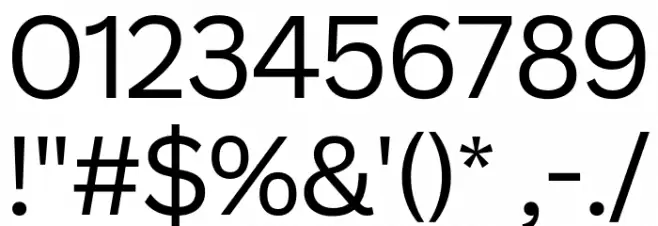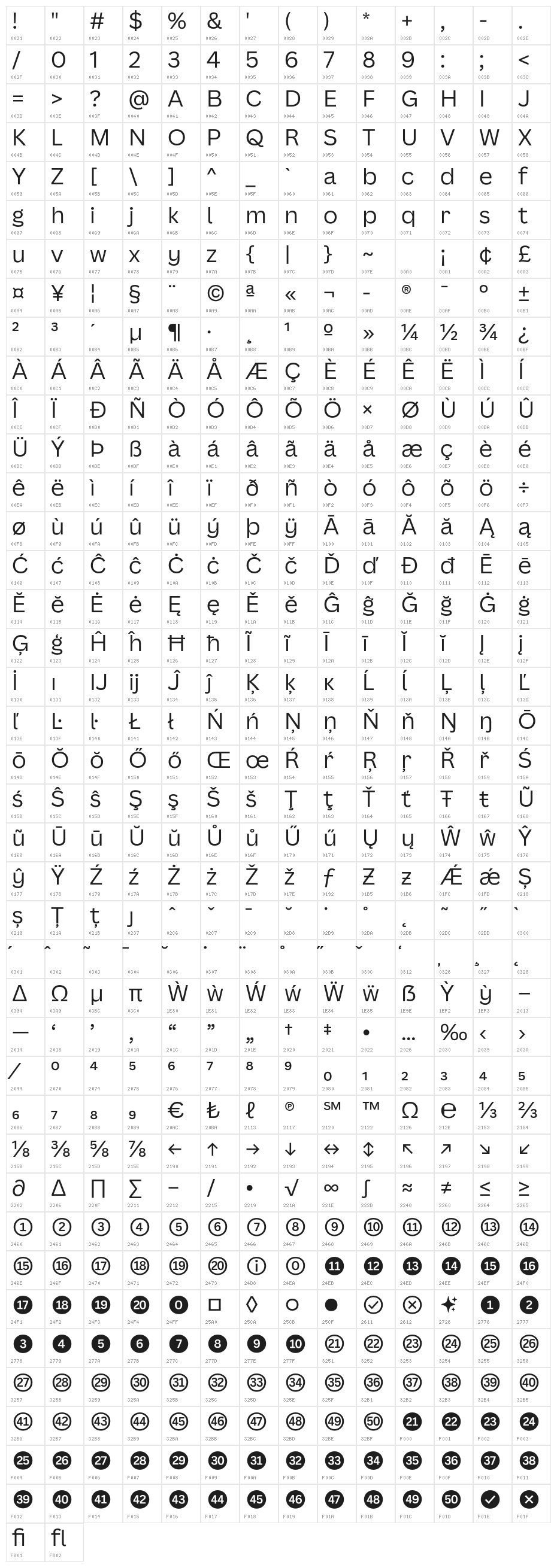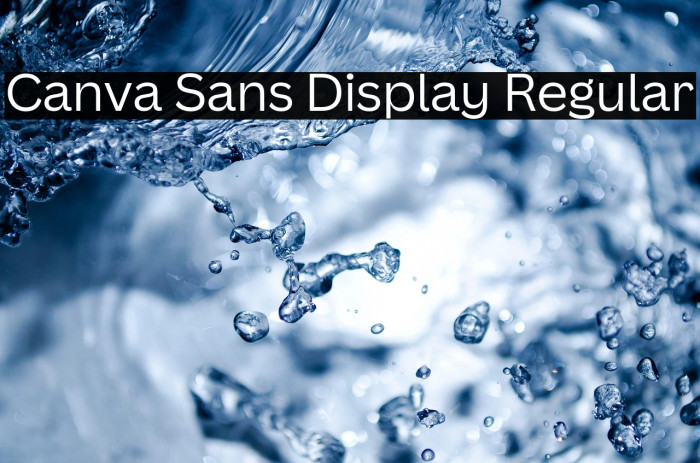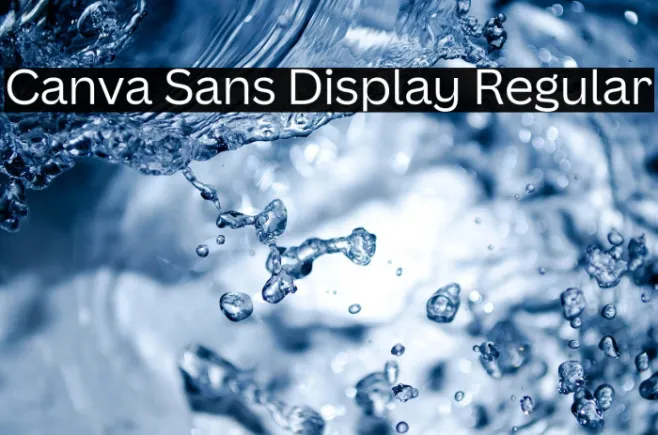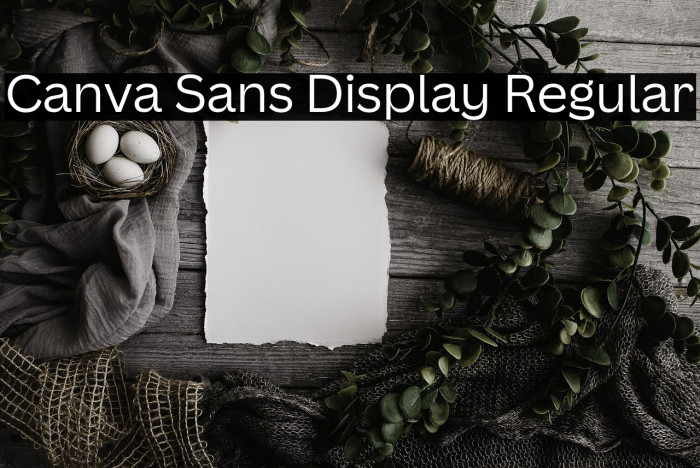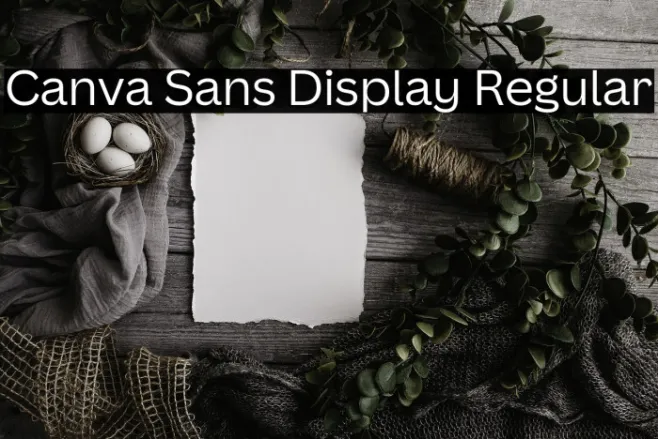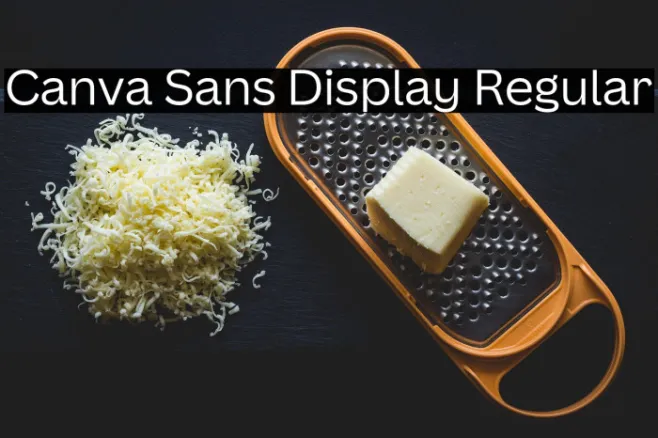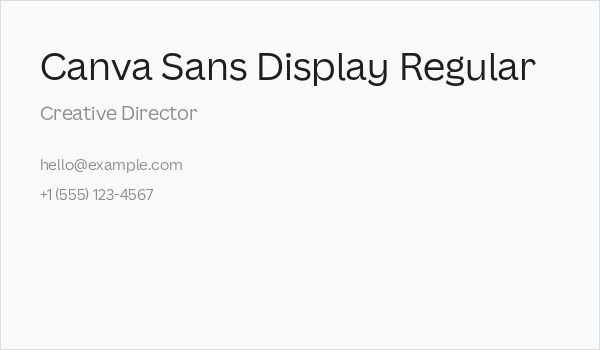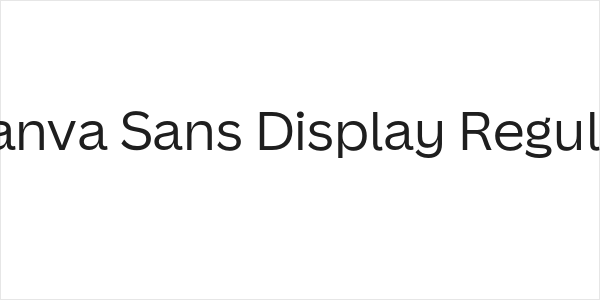
Canva Sans Display Regular Font
Canva Sans Display Regular Description
This font exhibits a clean and modern sans-serif style, characterized by its geometric shapes and uniform stroke widths. The uppercase letters are bold and well-defined, while the lowercase letters maintain a consistent height and spacing, ensuring readability. The numerals are clear and distinct, making them suitable for various applications. Special characters are well-integrated, maintaining the font's overall aesthetic. The design is versatile, making it suitable for both digital and print media.